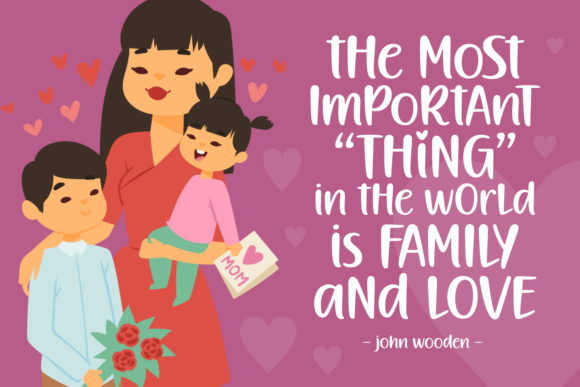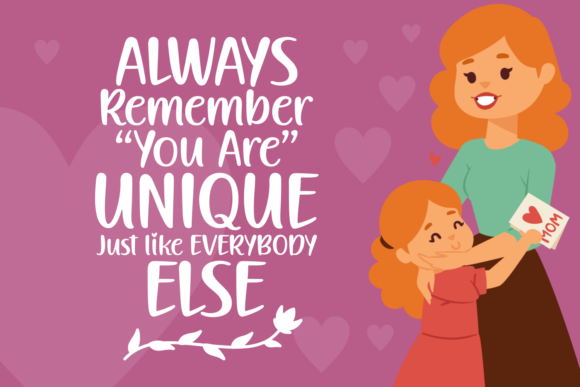
Great Mothers Font
db-ku.com - Script & Handwritten -- Great Mothers is a bold and friendly handwritten font. Simple and easy to use, this font will be very beautiful if you mix it with your various craft designs.